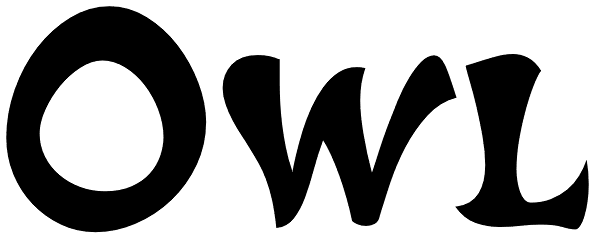
Owl
Owl is an amusing, childish, ornamental font whose features include spontaneity of thick, curved and smooth strokes with sharp edges. This font includes lowercase and uppercase capital letters. Character map contains all Latin and Cyrillic glyphs of...